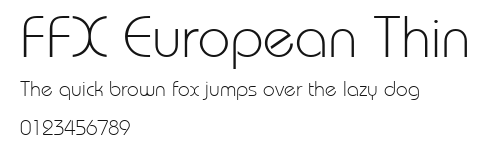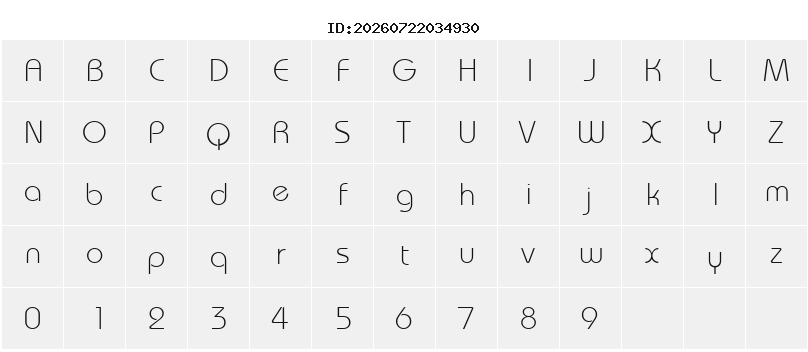
• Font Name: FFX European Thin
• Font Style: Light
About FFX European Thin.ttf
FFX European Thin.ttf is a modern, elegant sans-serif font designed for ultimate readability and visual harmony. Perfect for branding, headlines, web design, and print materials.